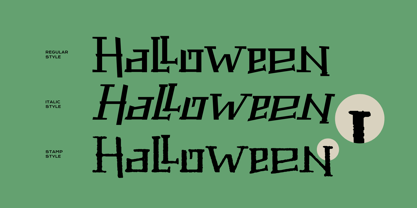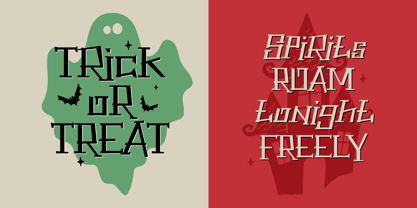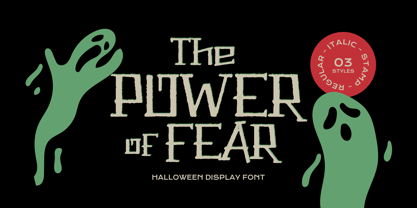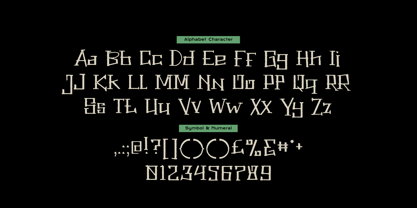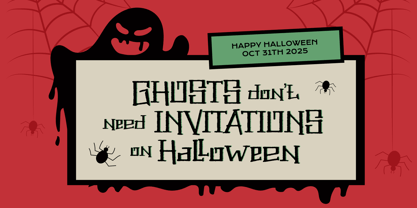
The Power Of Fear
by Imoodev
The The Power Of Fear Font Family was designed by Aulia Savira Putri and published by Imoodev. The Power Of Fear contains 3 styles and family package options. More about this family
The Power of Fear is a halloween display font that perfectly straddles the line between creepy and quirky. It has an irregular, handmade feel like it was scratched into a wooden sign outside a haunted forest. The uneven baselines, jagged serifs, and slightly decayed look all contribute to a spooky, playful vibe without becoming too grotesque.
Designers: Aulia Savira Putri
Foundry: Imoodev